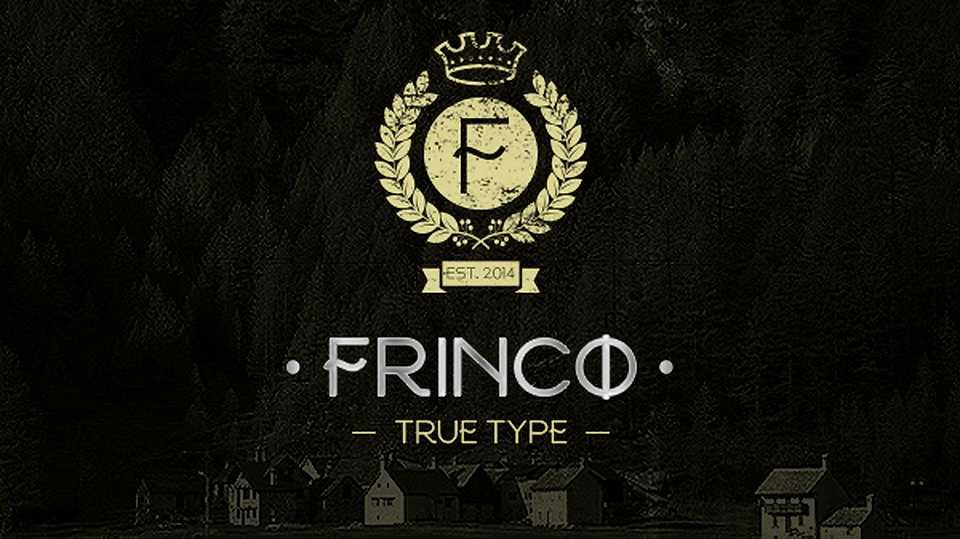
Download Frinco font, a simple yet elegant display font with geometric shapes and soft curves. Great for logos, headlines, branding, covers, social media and more.